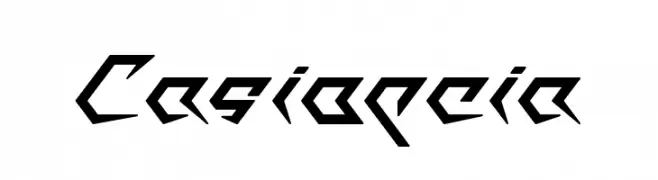
( Twicolabs Fontdation - Fahrizal Tawakkal - fontdation.com )
A bold, geometric font with strong, angular lines and a modern aesthetic.
A bold, modern font with thick, rounded strokes and tight spacing.
( Valdeir Junior )
A bold and italicized typeface with a modern and dynamic style.
( Rodrigo Fuenzalida - www.rfuenzalida.com )
A bold, rounded, and playful font with a modern and friendly style.
( Violet MX - stocklogos.com/user/74241/store )
An elegant, decorative font with whimsical swirls and curls.
( Violet MX - stocklogos.com/user/74241/store )
A whimsical, decorative font with fairy-tale inspired ornaments and intricate details.
( TheLouster115 )
A pixelated, retro font inspired by classic video games.
( TheLouster115 )
A pixelated, retro-style font inspired by classic video game graphics.
( Roland Huse Design - Roland Huse - rolandhuse.com )
A bold, high-contrast serif font with distinctive decorative elements.
( Qkila - Quentin Aquila - www.creativefabrica.com/designer/qkila/ )
A decorative, poker-themed font with bold outlines and playful curves.
( Swapnil Deshpandey - www.behance.net/crash2405 )
A playful, hand-drawn font with rounded serifs and a whimsical style.
( Rosie Collison - theartistisin.tumblr.com )
A playful, handwritten font with bold, rounded strokes and a lively, informal style.
( Pizzadude - Jakob Fischer - www.pizzadude.dk/ )
A tall, narrow font with a hand-drawn, artistic style.
( Thomas Breure - www.thomasbreure.com )
A bold, geometric font with sharp edges and a modern aesthetic.
( Tácio Brito )
A geometric, modern font with bold, clean lines and a slightly condensed style.
( Vulta - Jonathan Chambers - ournameisvulta.com )
A geometric, angular font with a futuristic and technical style.
( The Autumn Rabbit - Louise Ross - www.theautumnrabbit.com )
A playful, hand-drawn font with rounded, bubbly characters.
( Shelby King )
A modern, artistic font with thin lines and geometric shapes.